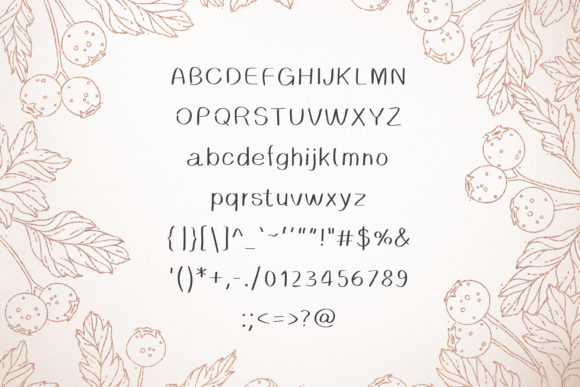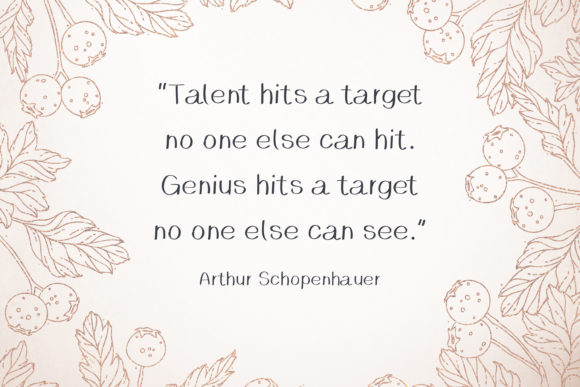
Wersalca Font
About Wersalca Font
Wersalca is a delicate, simple and neat handwritten font. It has beautiful and well balanced characters and as a result, it matches a wide pool of designs. Add it to your most creative ideas and notice how it makes them come alive!